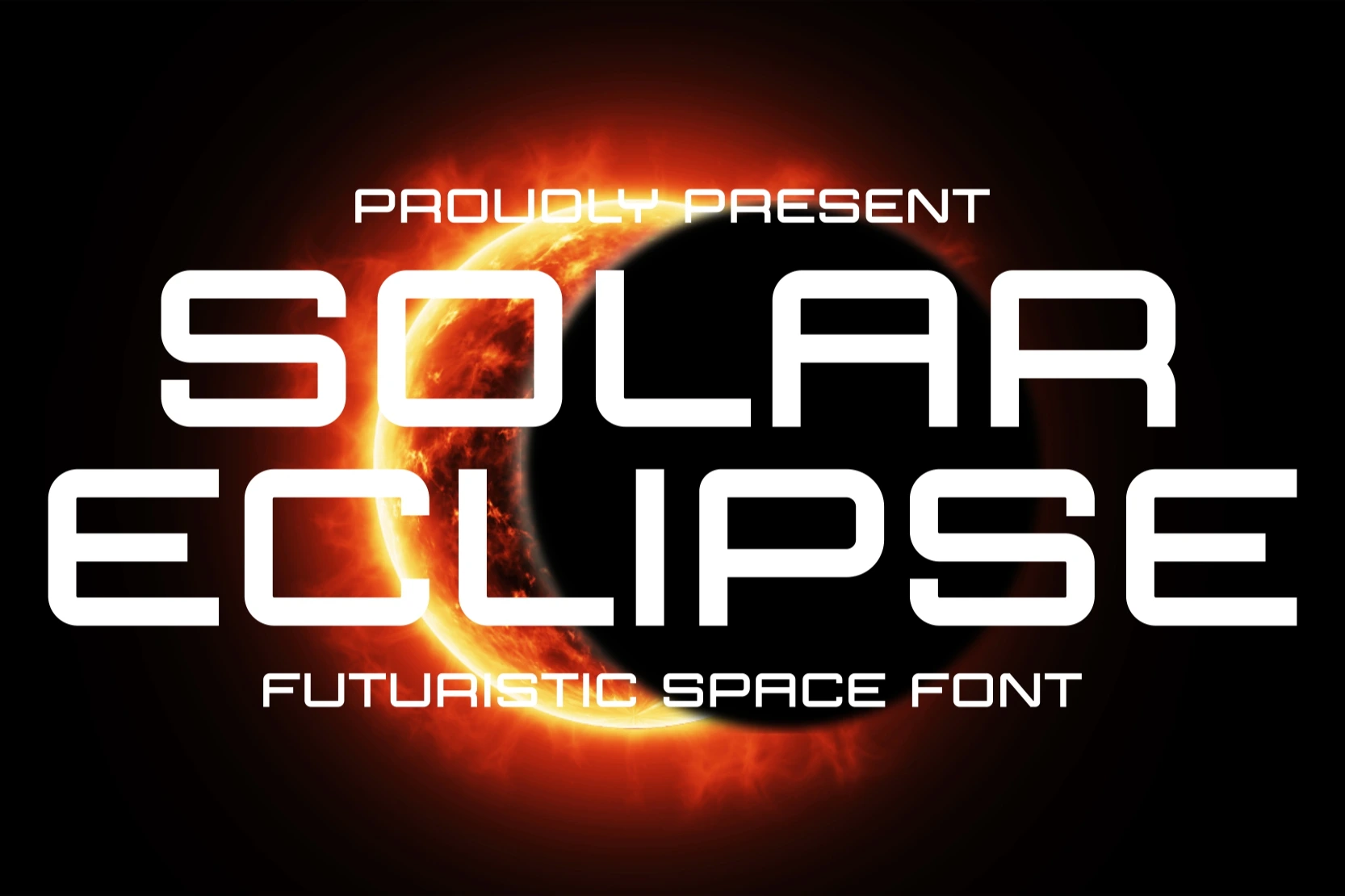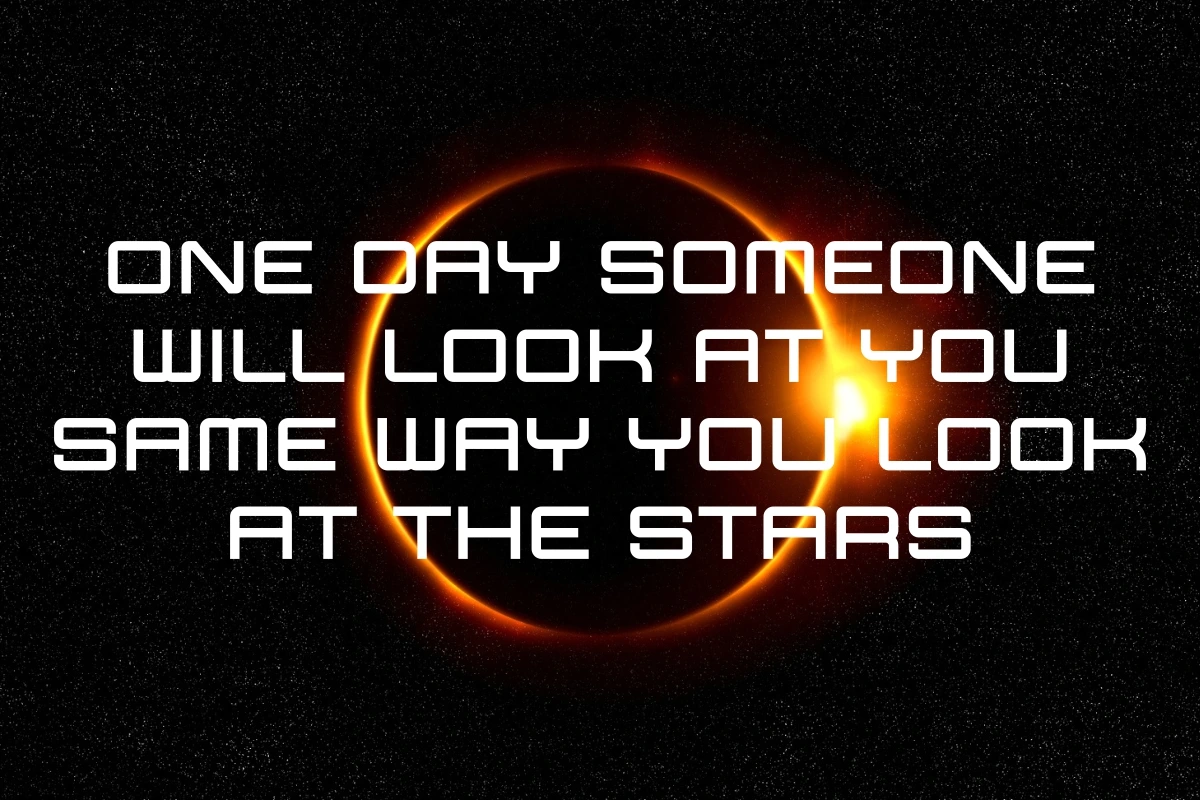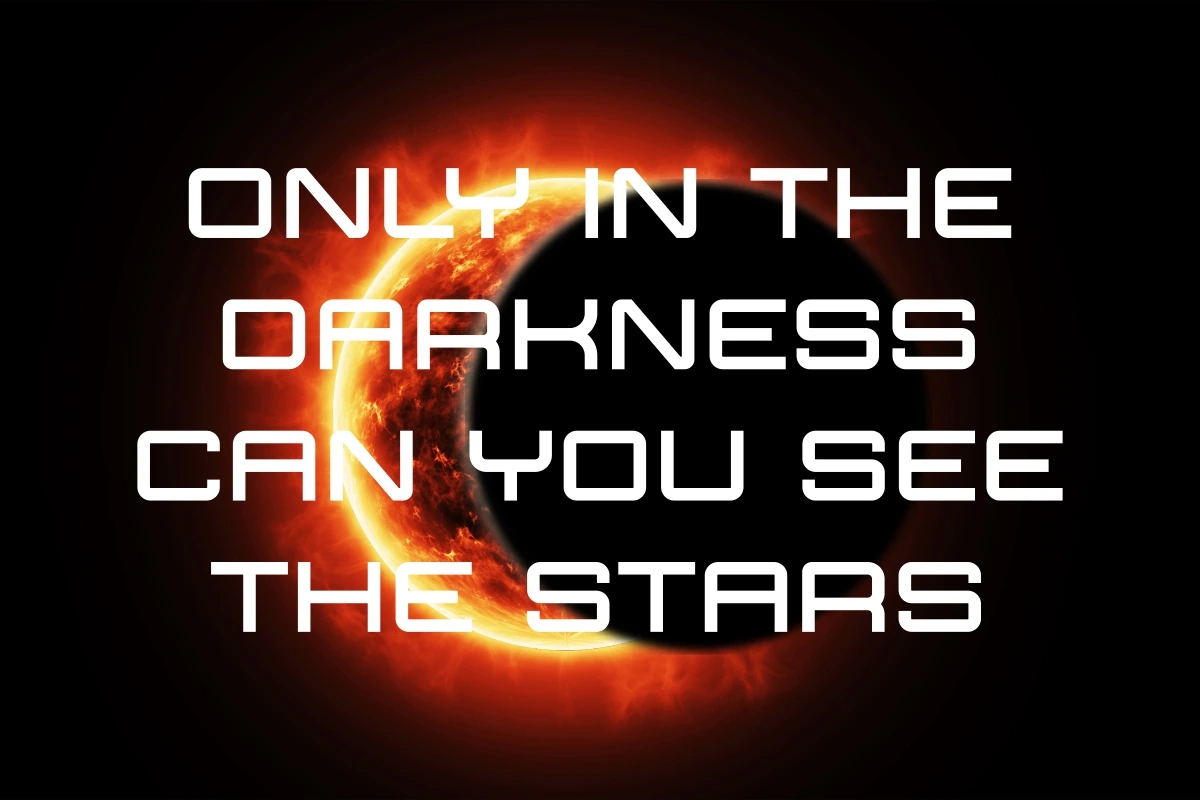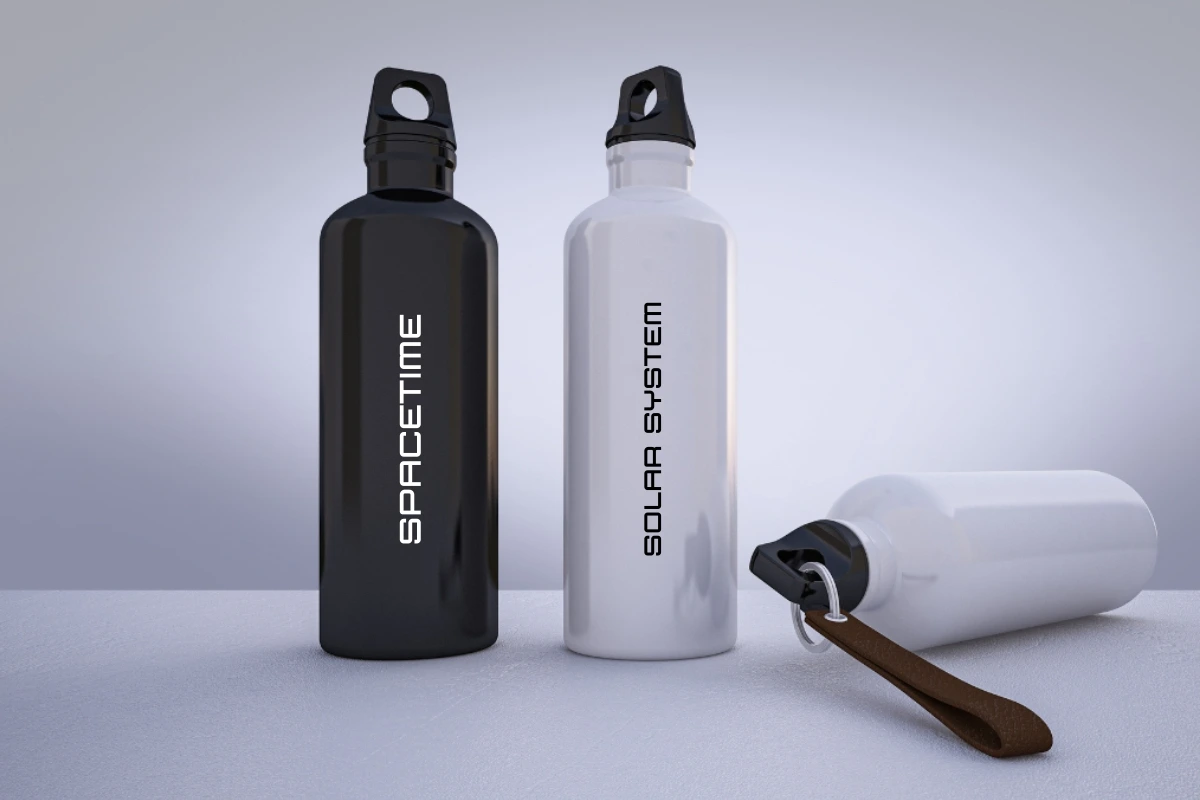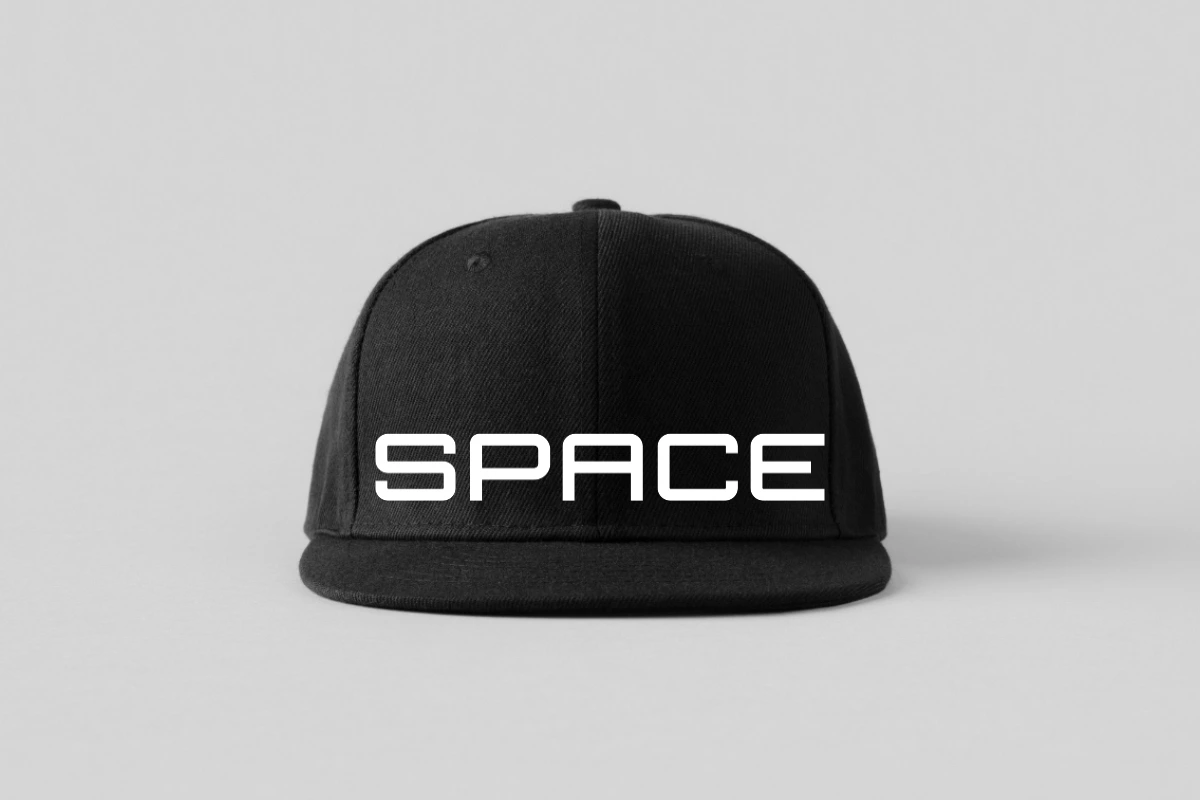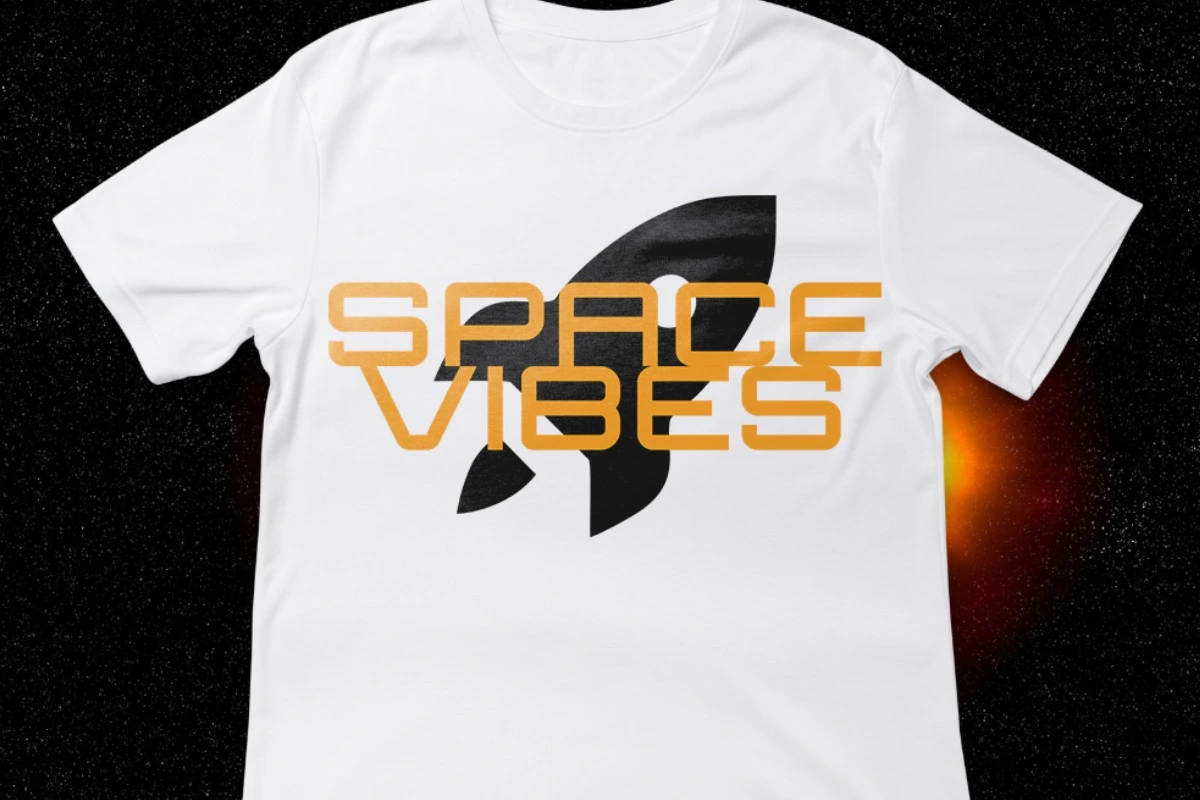
Solar Eclipse - Futuristic Font
Witness the spectacle of SOLAR ECLIPSE, a high-impact Futuristic Display Font that channels the raw power and mystery of space. This typeface is built with a sharp, minimalist geometric structure and bold curves, making it instantly recognizable and intensely modern.
The clean, commanding all-caps design is engineered for maximum legibility and presence in any digital or printed environment. SOLAR ECLIPSE is your key tool for crafting visuals that convey authority, cosmic energy, and a sleek, sophisticated future.